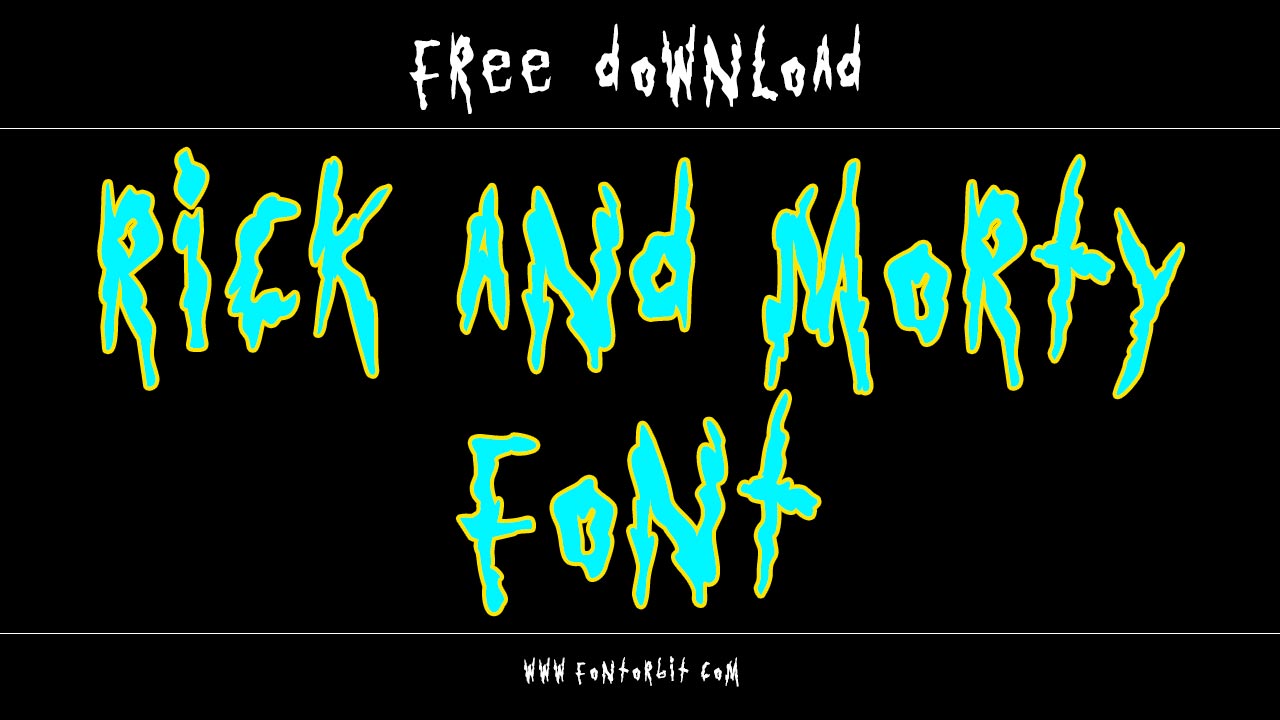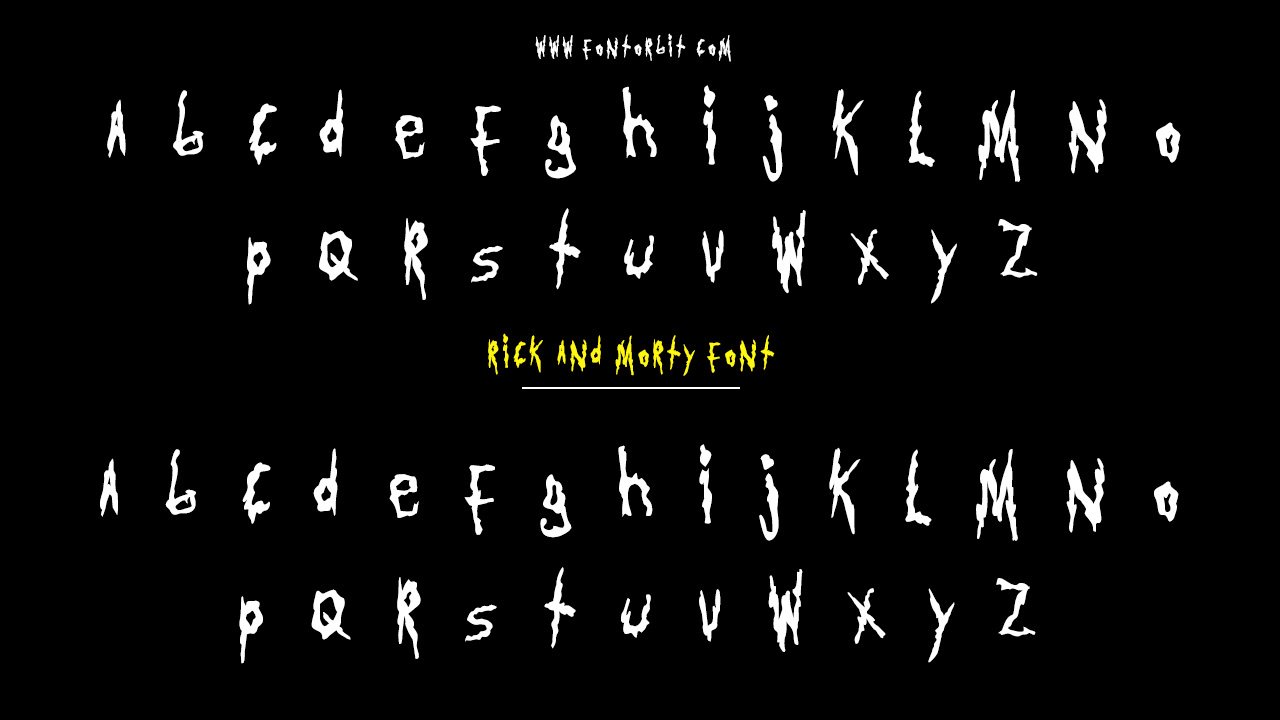
The Rick and Morty Font, also known as the Get Schwifty Font, is a quirky, rough-textured typeface inspired by the iconic logo of the popular animated sitcom Rick and Morty, created by Justin Roiland and Dan Harmon. This font, designed by Mr. Jonizaak, captures the essence of the show with its chaotic and bold strokes, making it an ideal choice for cartoon, science fiction, and horror-themed projects.
Type Of The Rick And Morty Font (Font Family)
The Rick and Morty Font is categorized under Fancy > Horror fonts due to its rough, hand-drawn aesthetic. Its irregular style evokes the wild and unpredictable adventures of Rick Sanchez and Morty Smith. The font family includes:
- Get Schwifty Font
The Rick And Morty Font Found In Use
This font is widely used in creative designs, including:
- Branding: Quirky product lines or merchandise inspired by cartoons.
- Logo Design: Sci-fi or horror-themed logos.
- Posters: Science fiction and horror movie posters.
- Digital Graphics: Memes, social media posts, and fan art.
- Clothing and Merchandise: Graphic tees and accessories.
1. What is the font name used in Rick and Morty?
The font used in the Rick and Morty logo is the Get Schwifty Font, designed by Mr. Jonizaak. It falls under the cartoon font and horror font categories, making it a standout typeface for creative projects. It is part of a unique morty font family with a rough and quirky design.
3. What are the supported languages and font details?
The Get Schwifty Font supports Basic Latin characters, including uppercase and lowercase letters. It features 62 characters, making it suitable for text-based designs. You can view its character map image to explore its full set of glyphs.
5. What are popular uses for the Rick and Morty Font?
The font is widely used in:
- Posters: Particularly for movie fonts and science fiction themes.
- Logo Font: Ideal for branding and quirky logos.
- Typography: Enhancing text-based designs with its distinctive style.
- Horror Movie Posters: Its dangerous look makes it perfect for spooky themes.
6. What are the best design projects for the Rick and Morty Font?
The Get Schwifty Font is perfect for:
- Designing posters featuring Rick Sanchez and Morty Smith.
- Creating horror font inspired by cartoon network aesthetics.
- Enhancing game fonts or unique designers’ typography for horror movie posters or science fiction settings.